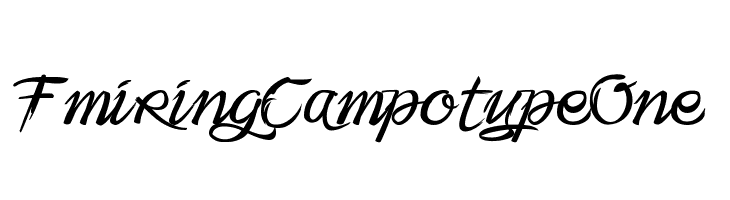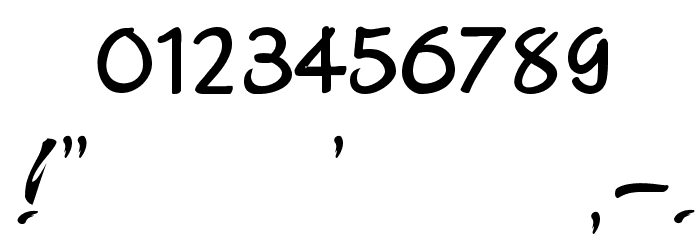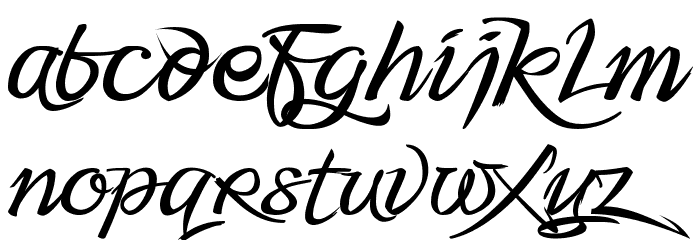
FmiringCampotypeOne Font
This font features a dynamic and expressive style, characterized by sharp, angular strokes and a flowing, cursive design. The uppercase letters exhibit a bold and dramatic flair, with exaggerated curves and pointed terminals that give a sense of movement and energy. The lowercase letters maintain this fluidity, with a slightly more restrained form that complements the uppercase. Numbers are consistent with the overall style, offering a cohesive look. Special characters are integrated seamlessly, maintaining the font's unique aesthetic. The font's artistic nature makes it suitable for creative and bold design projects.
A dynamic, cursive font with sharp, angular strokes and a bold, expressive style.